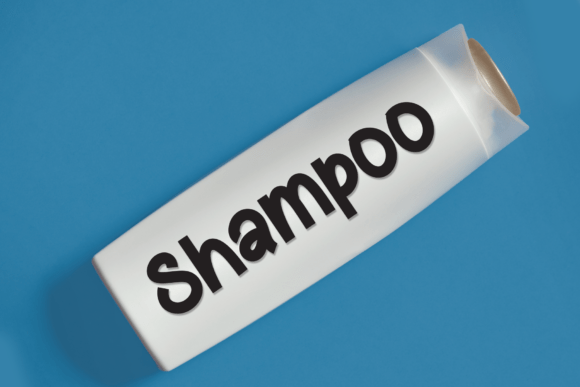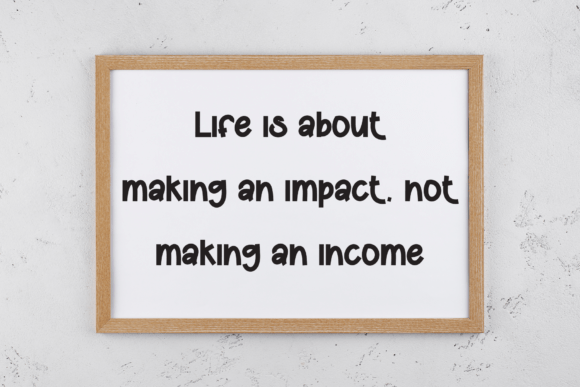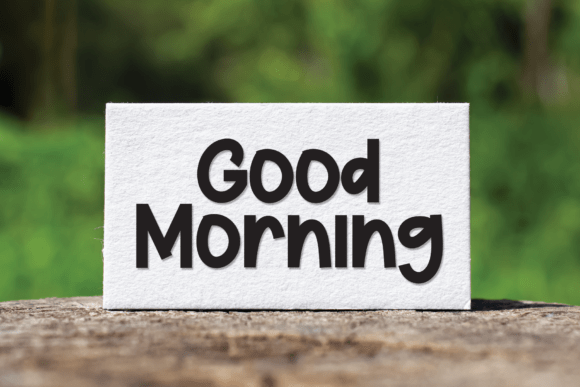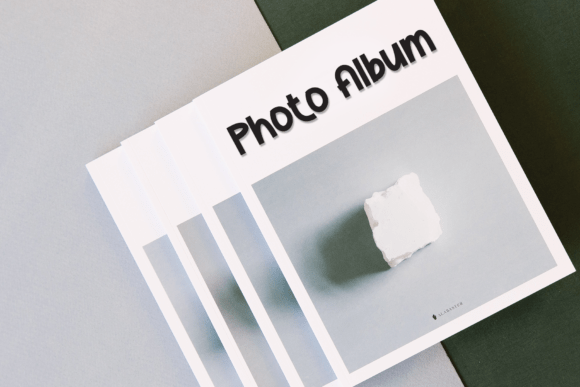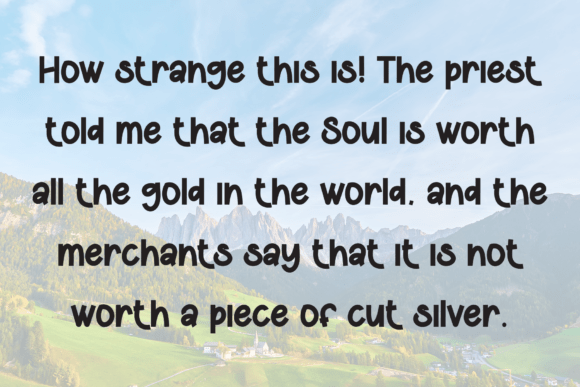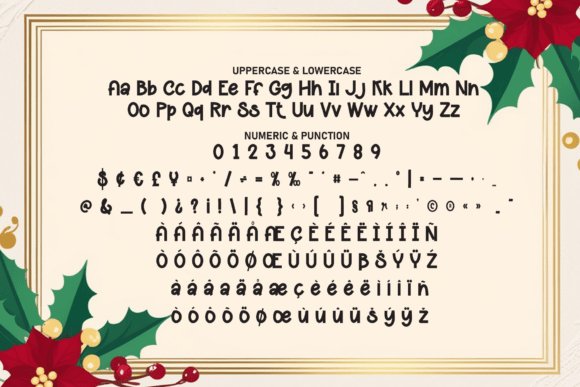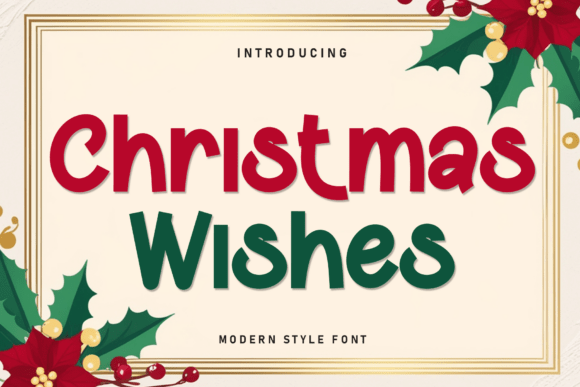
Introducing Christmas Wishes Font: The Perfect Blend of Modern Simplicity and Playful Charm
Are you looking for a font that can add a fresh and friendly touch to your designs? Look no further than Christmas Wishes Font, a casual display font that blends modern simplicity with a playful, approachable vibe. In this article, we’ll dive into the features and benefits of Christmas Wishes Font, and explore how it can elevate your designs for various projects.
Clean Shapes, Soft Edges, and Well-Balanced Letterforms
Christmas Wishes Font boasts clean shapes, soft edges, and well-balanced letterforms that capture the charm of relaxed design while maintaining clarity and style. The font’s modern simplicity makes it perfect for designers who want to create a friendly and approachable visual identity for their brand or project. The clean lines and soft edges also ensure that the font remains highly legible, even at smaller sizes.
Ideal for Various Design Projects
Christmas Wishes Font is an incredibly versatile font that can be used for a wide range of design projects. Whether you’re creating posters, branding materials, packaging, or social media graphics, this font is sure to add a fresh and friendly touch to your designs. Its playful and approachable vibe makes it perfect for designers who want to create a fun and youthful visual identity.
Poster Design
Christmas Wishes Font is ideal for poster design, thanks to its bold and eye-catching appeal. You can use it to create stunning posters for events, promotions, or announcements. The font’s clean lines and soft edges ensure that your message is conveyed clearly and effectively.
Branding and Packaging
For branding and packaging projects, Christmas Wishes Font offers a unique and memorable visual identity. You can use it to create custom logos, labels, or packaging materials that stand out from the crowd. The font’s playful and approachable vibe makes it perfect for brands that want to convey a friendly and approachable image.
Social Media Graphics
Christmas Wishes Font is also perfect for social media graphics, thanks to its versatility and eye-catching appeal. You can use it to create engaging social media posts, stories, or ads that grab the attention of your audience. The font’s clean lines and soft edges ensure that your message is conveyed clearly and effectively, even on smaller screens.
Versatile Character and Eye-Catching Appeal
One of the standout features of Christmas Wishes Font is its versatile character and eye-catching appeal. The font’s unique blend of modern simplicity and playful charm makes it perfect for designers who want to create a visual identity that stands out from the crowd. Whether you’re designing for print or digital media, Christmas Wishes Font is sure to deliver both readability and personality.
- Modern simplicity: Christmas Wishes Font boasts a clean and minimalist design that’s perfect for modern brands and projects.
- Playful and approachable vibe: The font’s playful and approachable vibe makes it perfect for designers who want to create a friendly and youthful visual identity.
- Clean shapes and soft edges: The font’s clean shapes and soft edges ensure that it remains highly legible, even at smaller sizes.
- Well-balanced letterforms: The font’s well-balanced letterforms make it perfect for body text and headlines.
- Versatile character: Christmas Wishes Font is perfect for a wide range of design projects, from posters and branding to packaging and social media graphics.
In conclusion, Christmas Wishes Font is a fantastic addition to any designer’s toolkit. Its unique blend of modern simplicity and playful charm makes it perfect for designers who want to create a friendly and approachable visual identity. With its versatile character and eye-catching appeal, Christmas Wishes Font is sure to deliver both readability and personality for any project. So why not give it a try and see how it can elevate your designs?